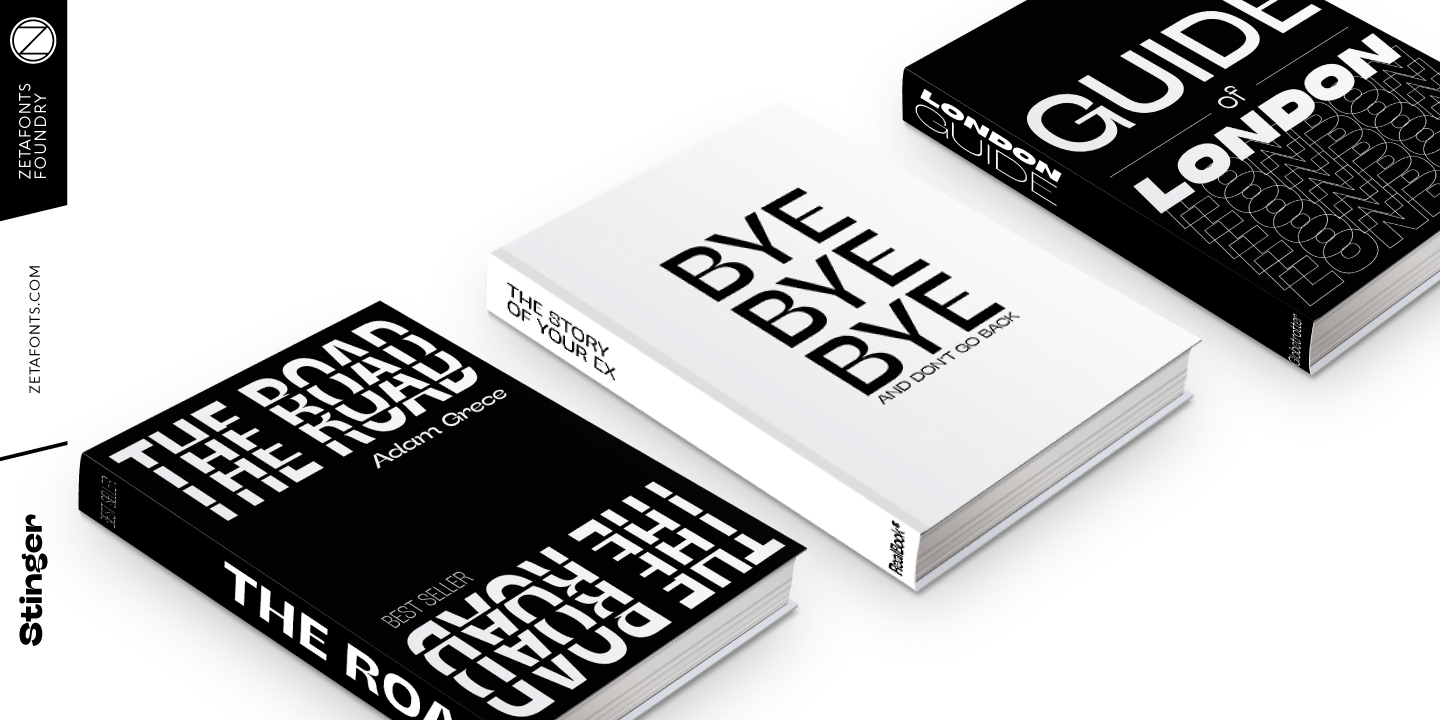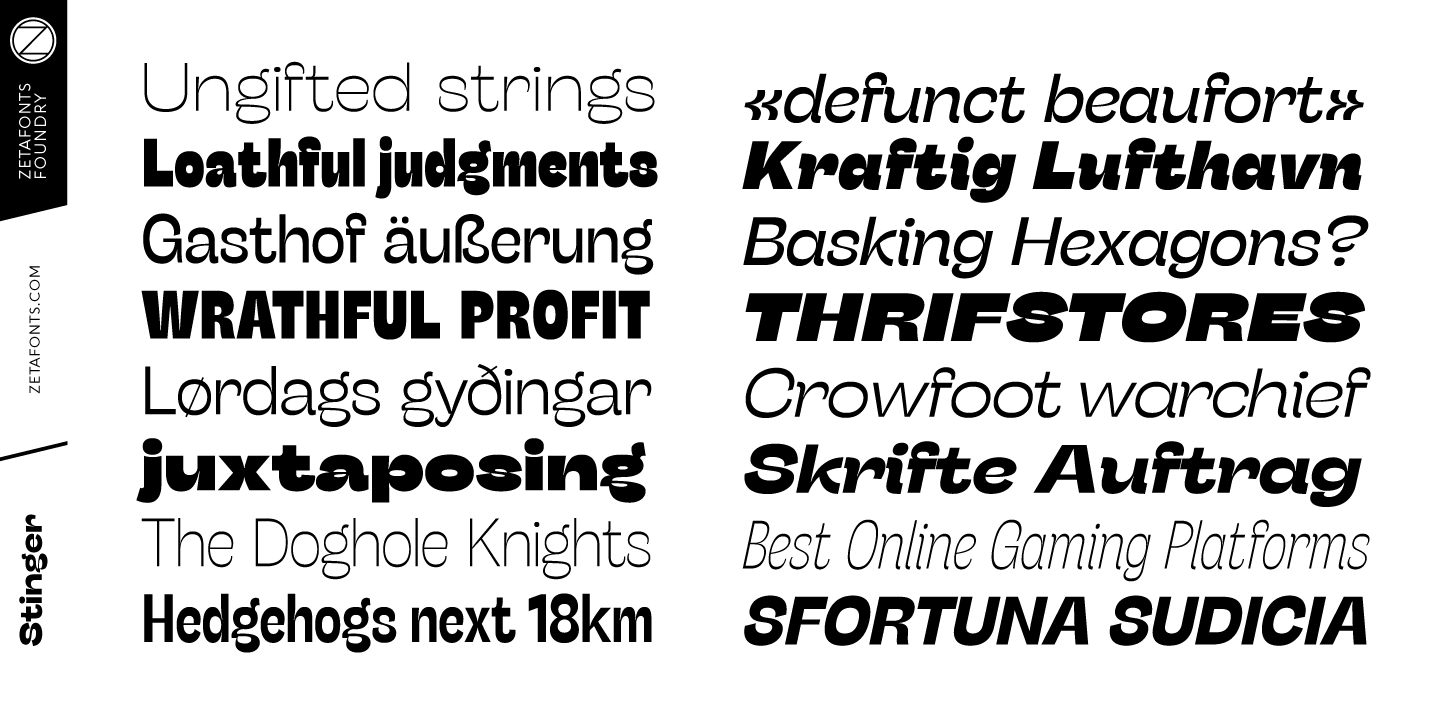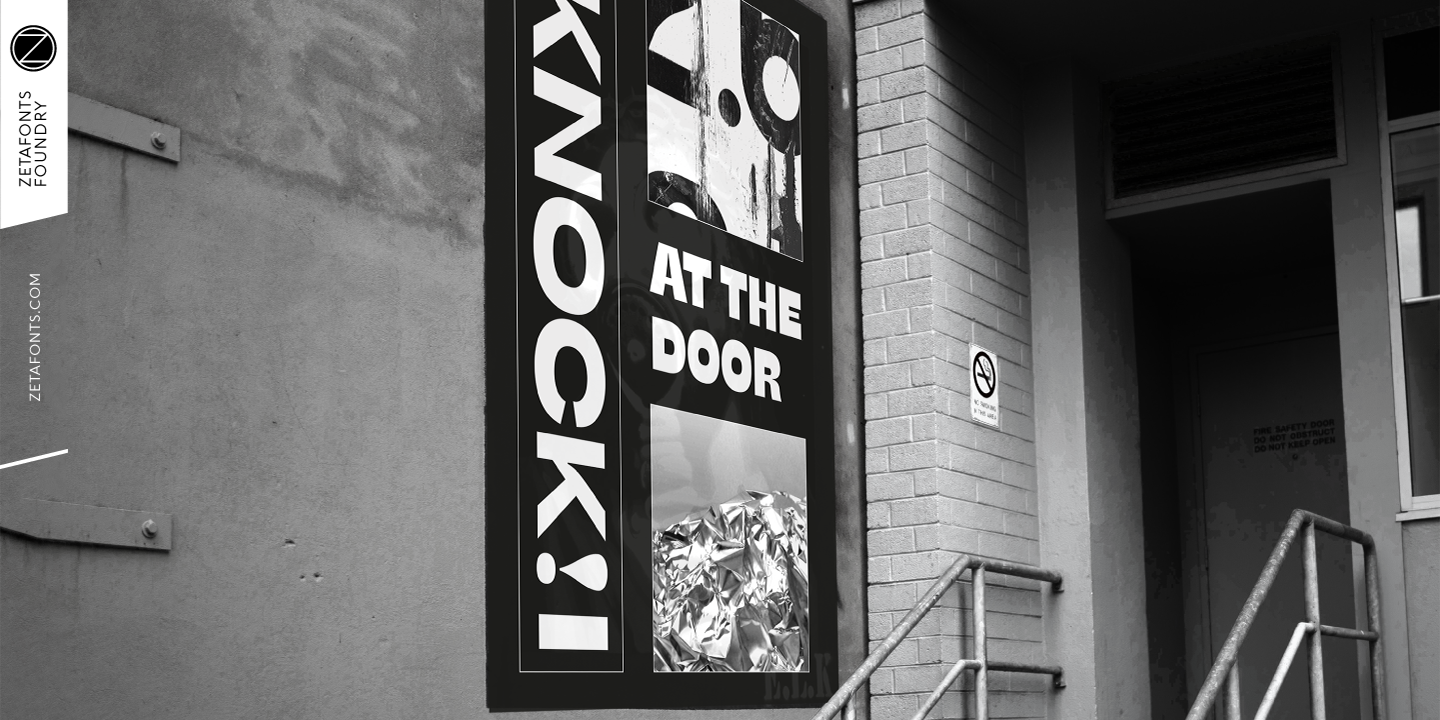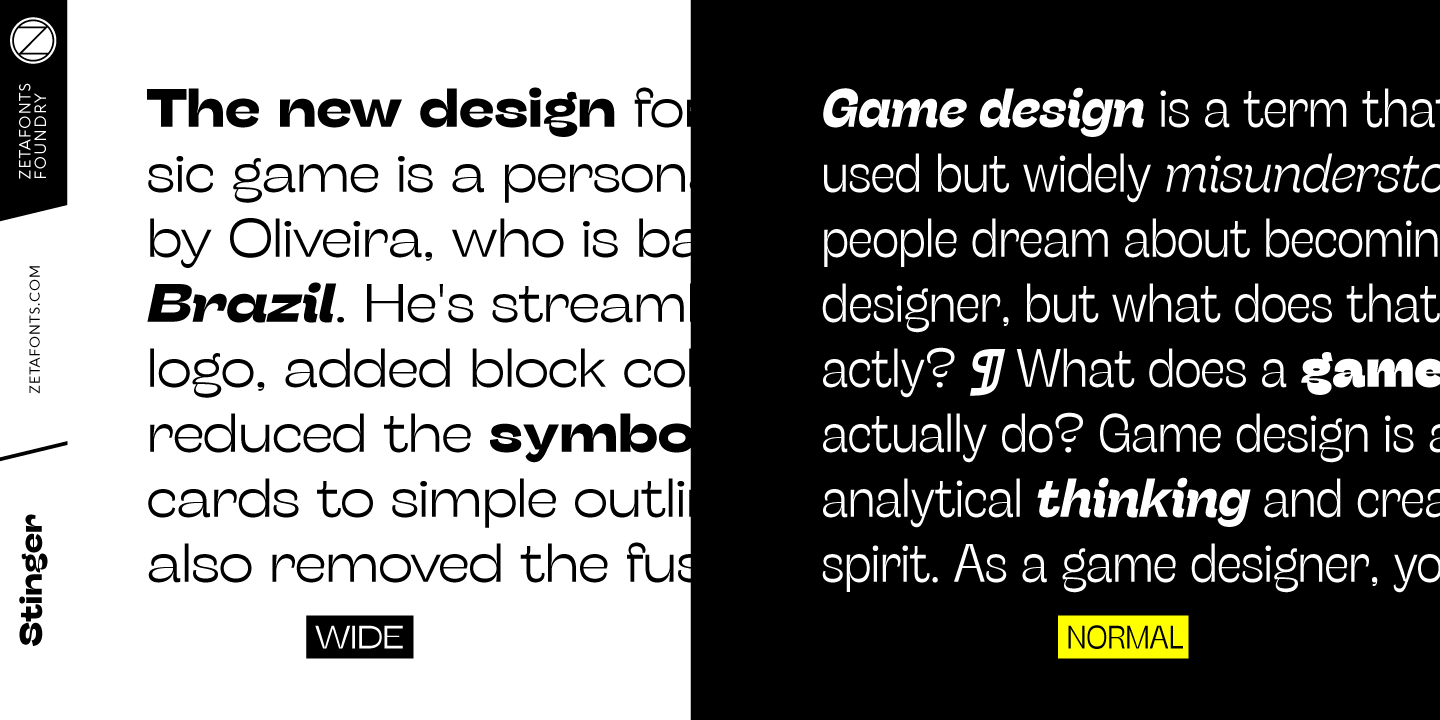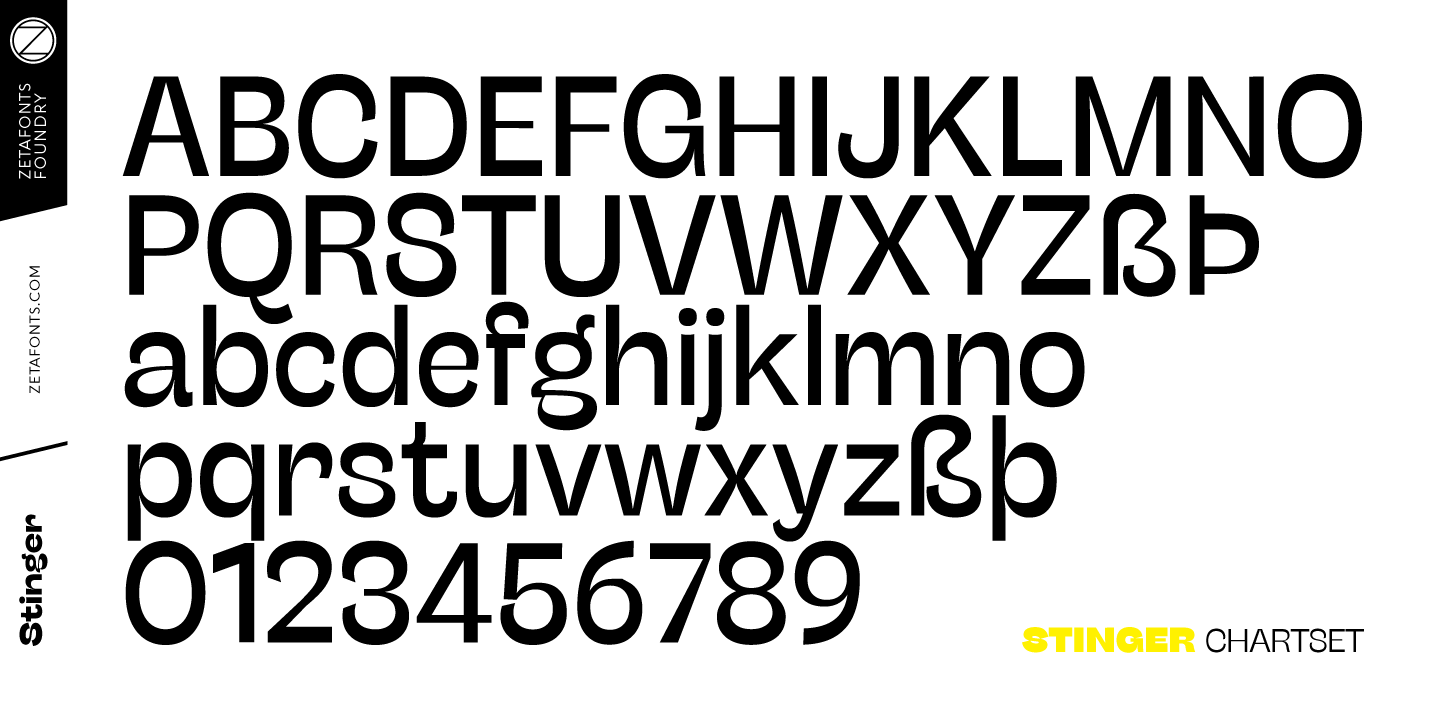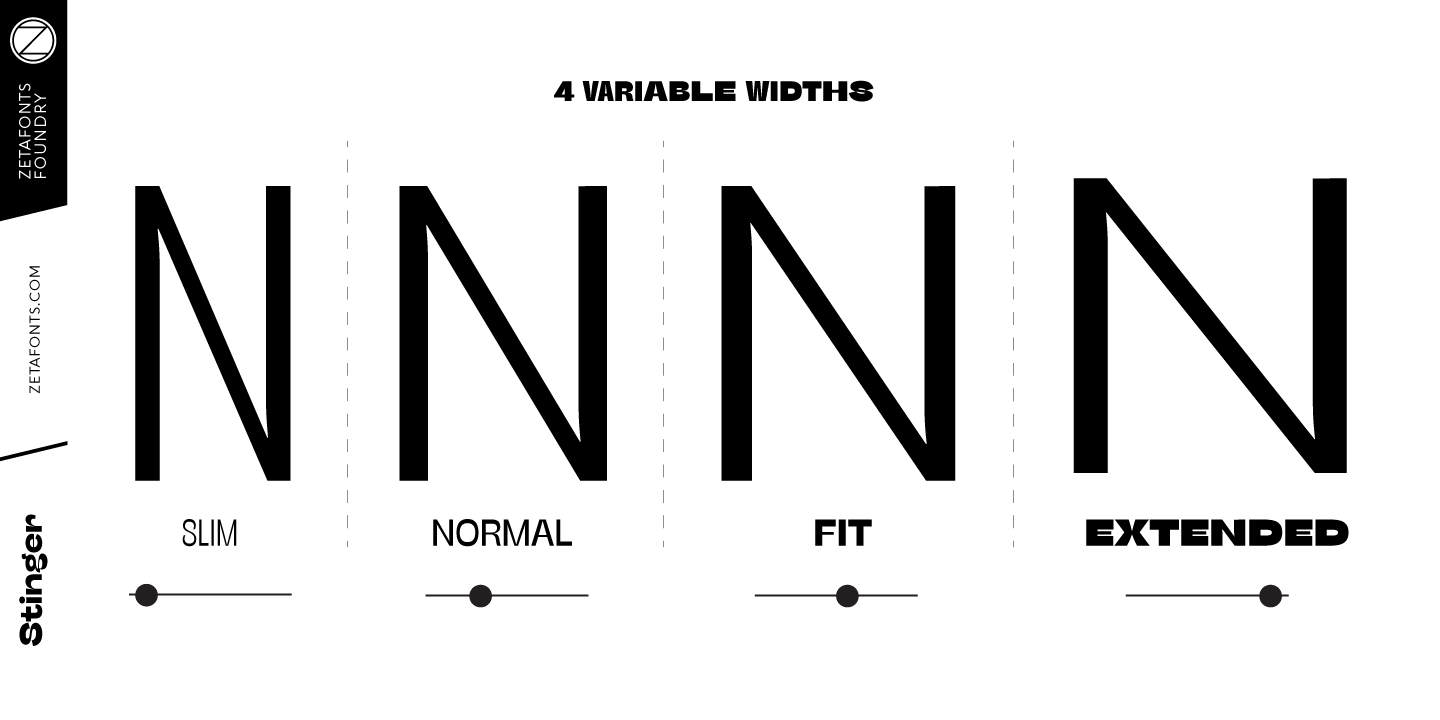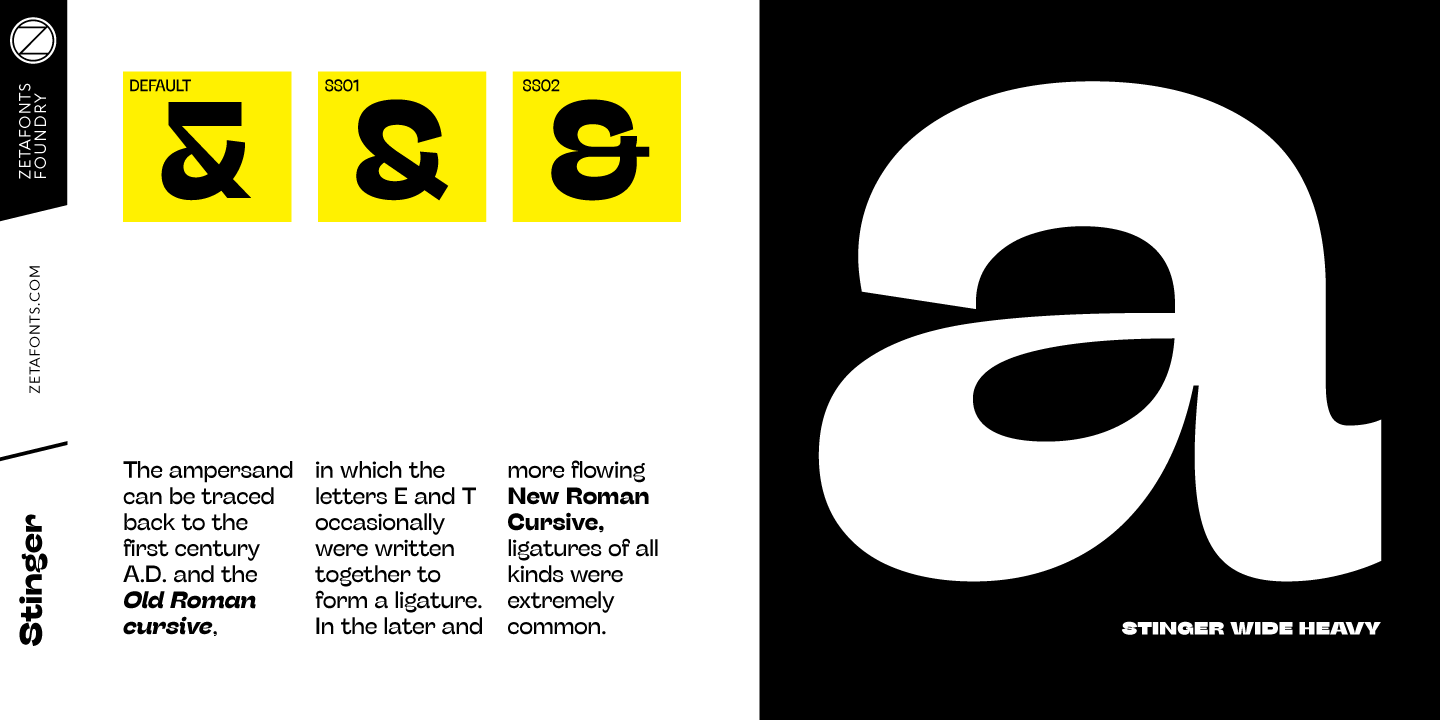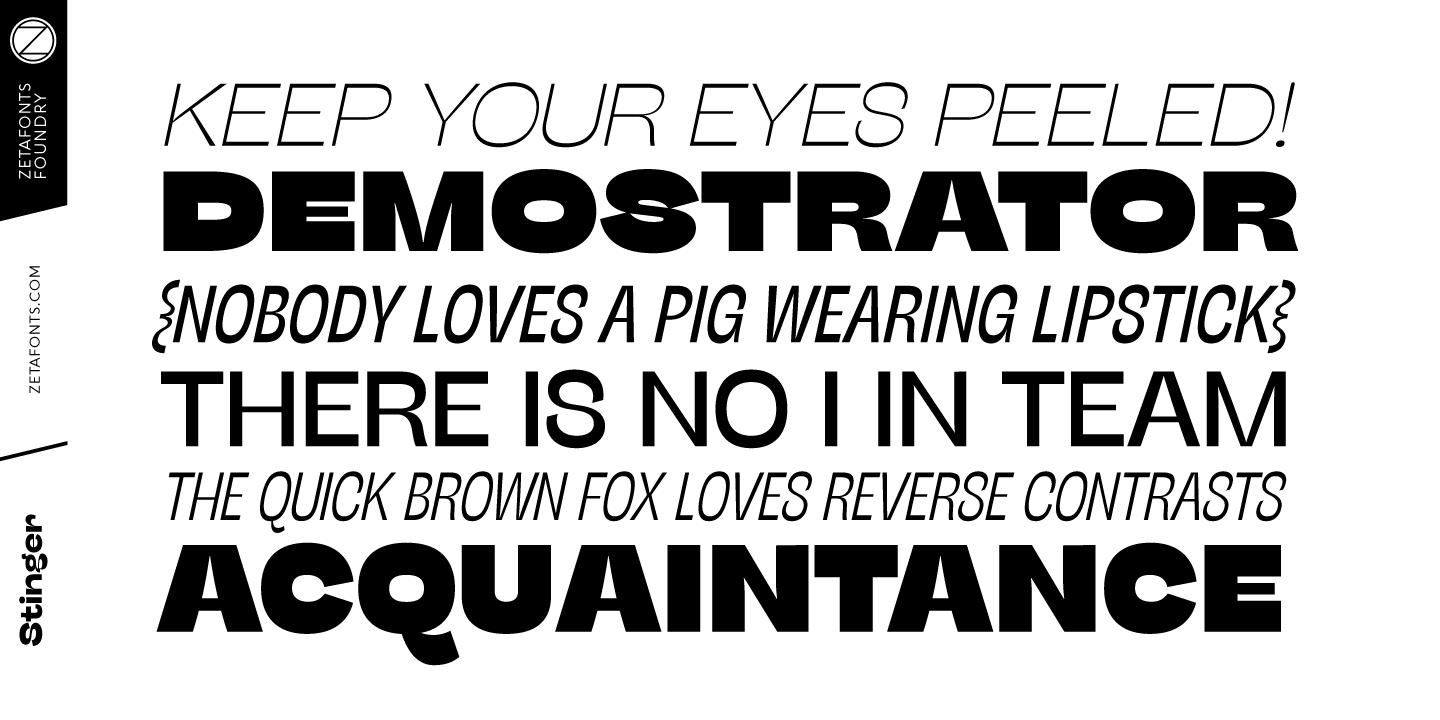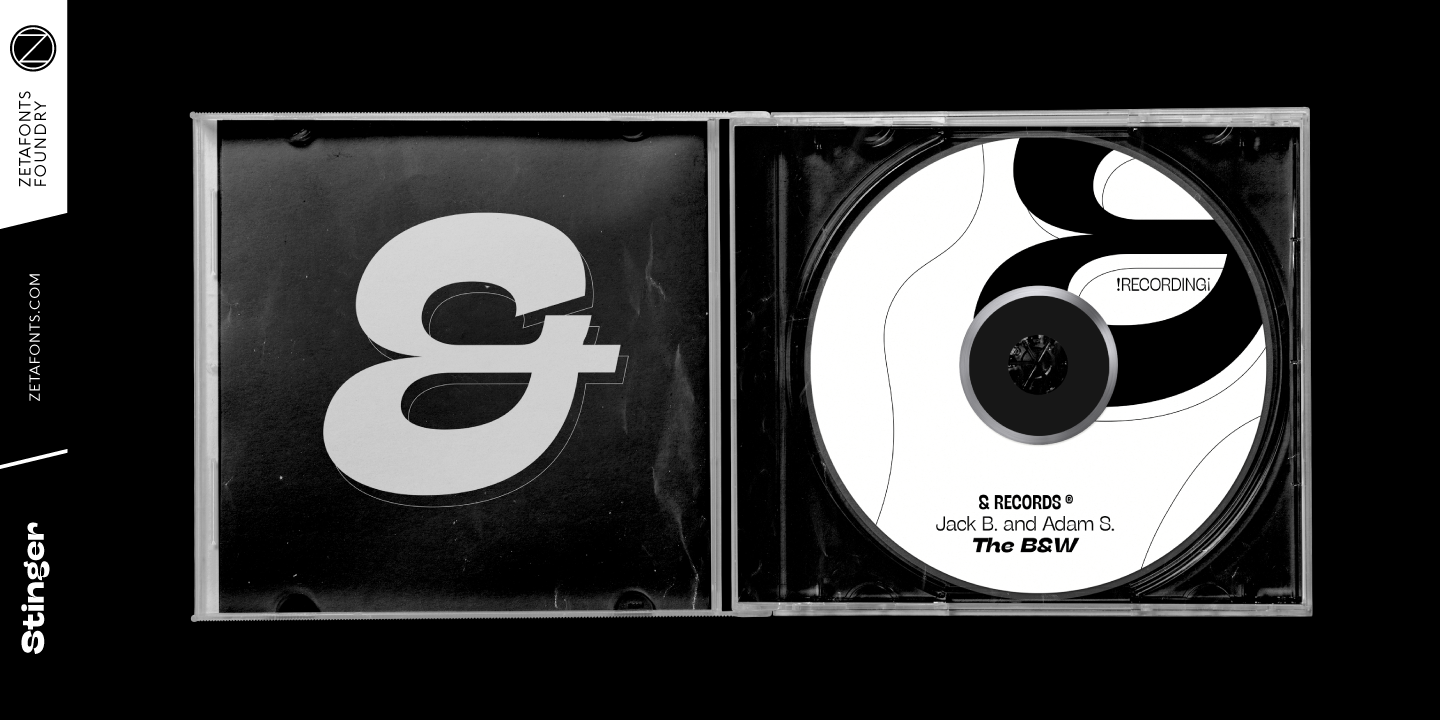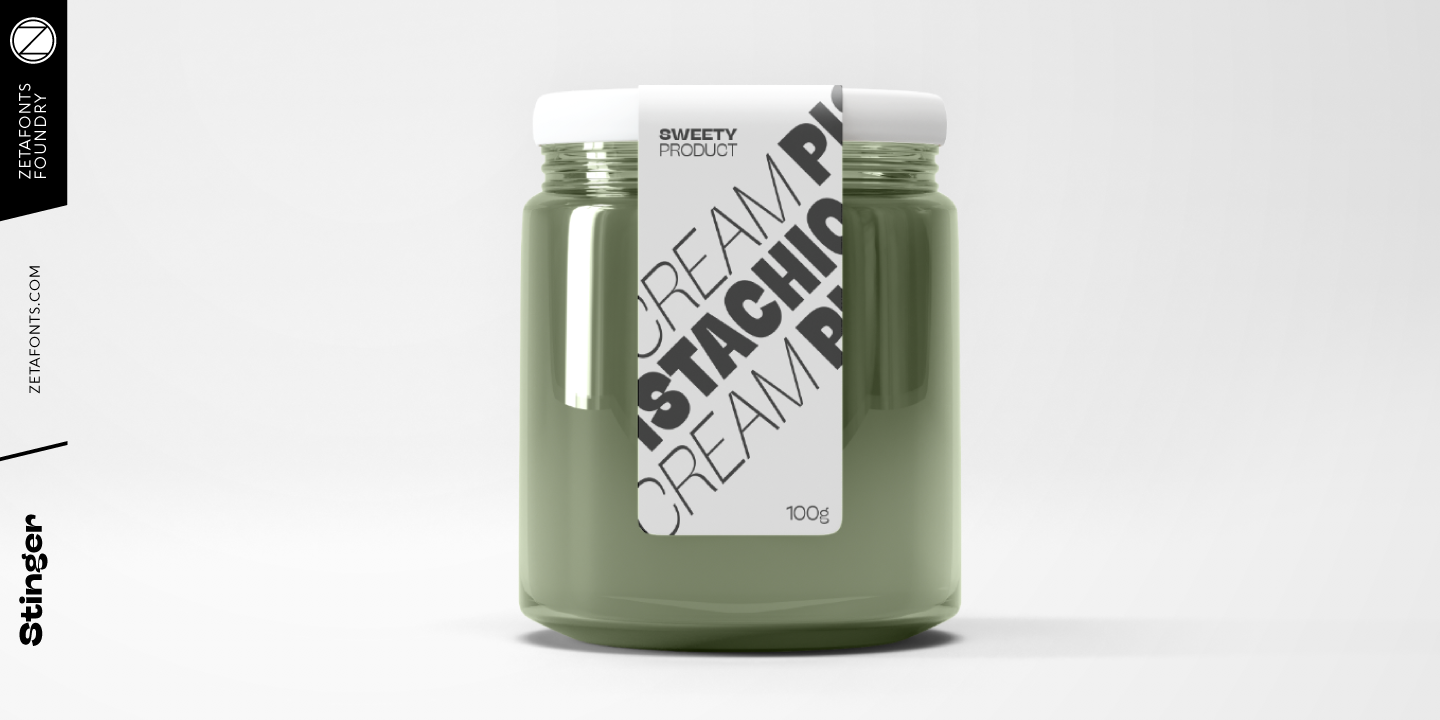
Since their first appearance as Italians on the pages of the 1821 William Caslon type specimens, reverse contrast typefaces have been typography's best loved quirky outcasts. Subverting the traditional relationship between thick verticals and thin horizontals made them perfect for eye-catching advertisements. The unexpected contrasts and the thick slabs produced by reverse-contrast serifs became ubiquitous in period posters, and synonymous with wild west and circus iconography.
In designing Stinger, the Zetafonts design team composed by Maria Chiara Fantini, Andrea Tartarelli and Francesco Canovaro and orchestrated by Cosimo Lorenzo Pancini decided to marry this subversive tradition with the workhorse approach of modernist sans serif typefaces like Univers, developing a super-family with four widths, each in five different weights, from thin to heavy. This gives the designer a full range of options for type setting, with the Normal and Fit widths providing two different text-sized alternatives, the wide width adding display and titling options and the Slim ready to deal with the space-saving necessities of extremely long texts. True italics have been added developed for all weights and variants, bringing the Stinger family to a total of 40 fonts, with a latin extended + Russian Cyrillic character set covering over 200 languages, and open type features including positional numbers, stylistic sets and alternate forms.
In the crowded panorama of contemporary grotesque typefaces, all aiming to stark geometric perfection, Stinger stands out with its bold choices and strong personality. From the calligraphy-inspired terminals in the thin weights to the logo-ready sculptural approach in the heavy weights, each variant manages to look striking without forgetting the readability and flexibility lessons of modern reverse-contrast classics like those designed by Excoffon or Novarese. A variable version is included with the full family, allowing maximum flexibility and control for the designer over the wide range of expression capabilities of the Stinger super family.